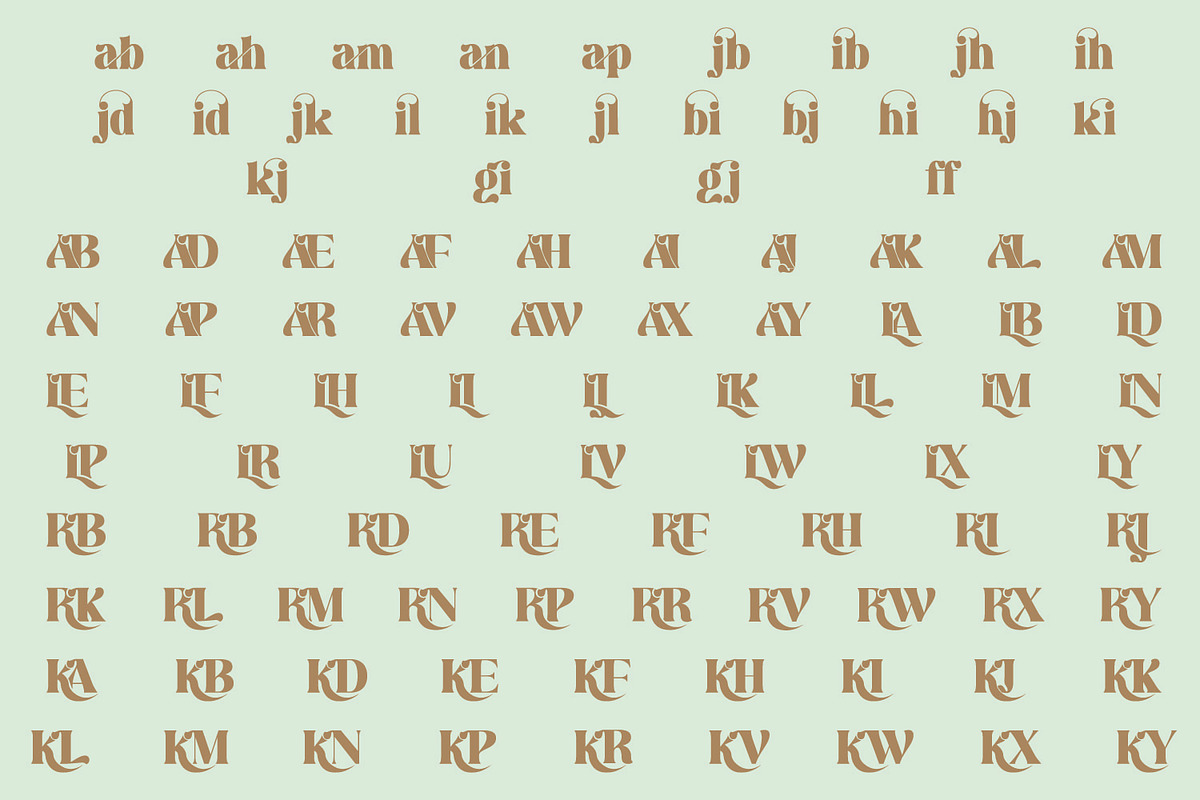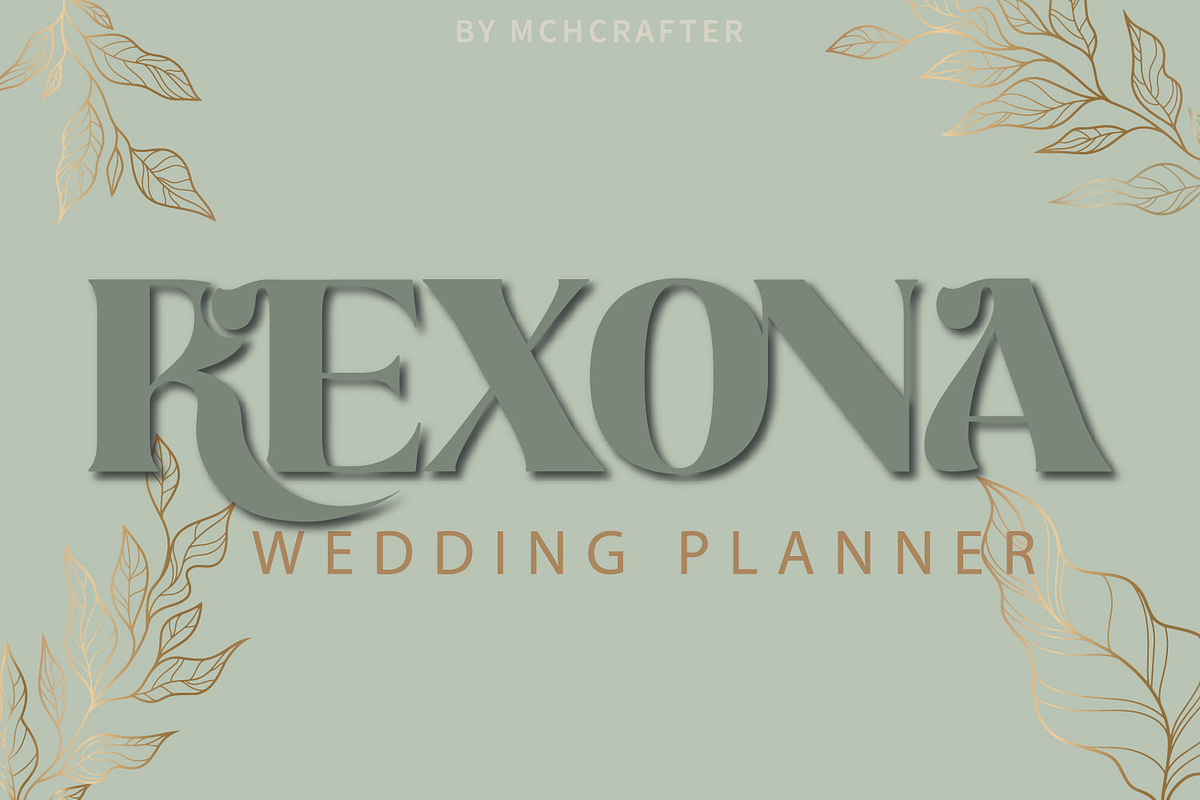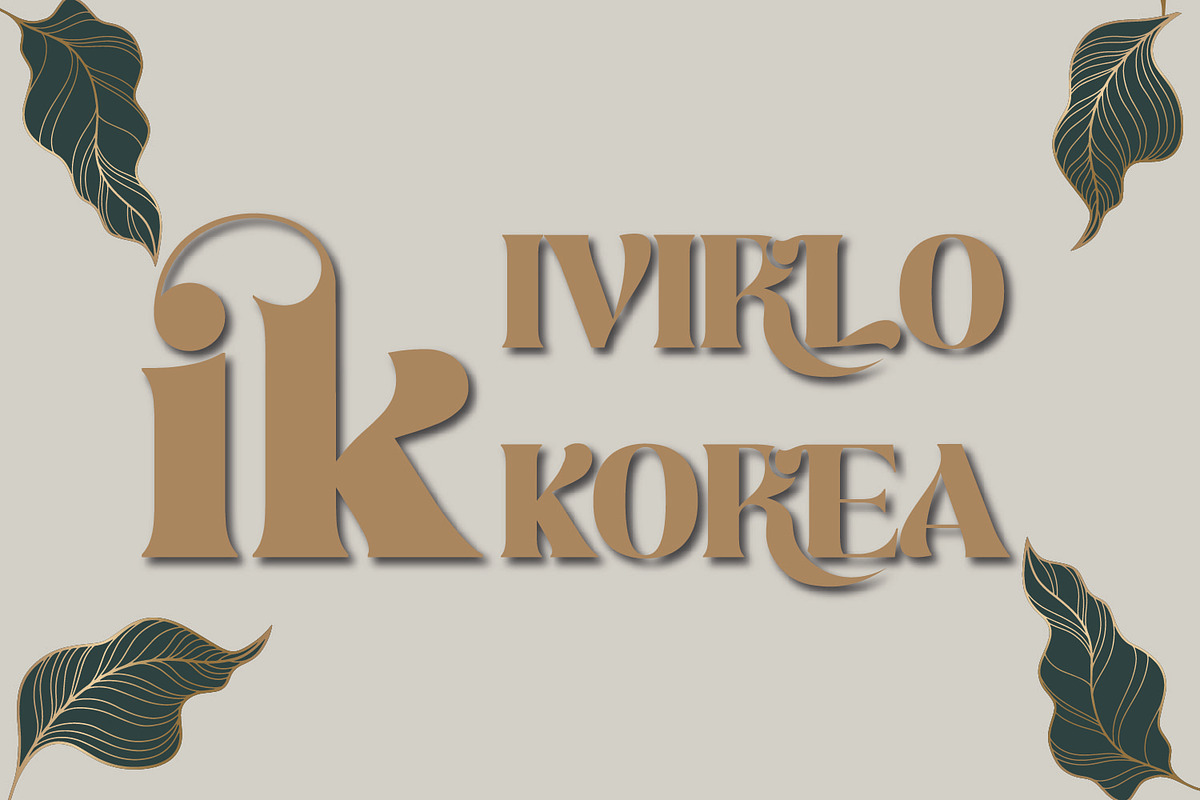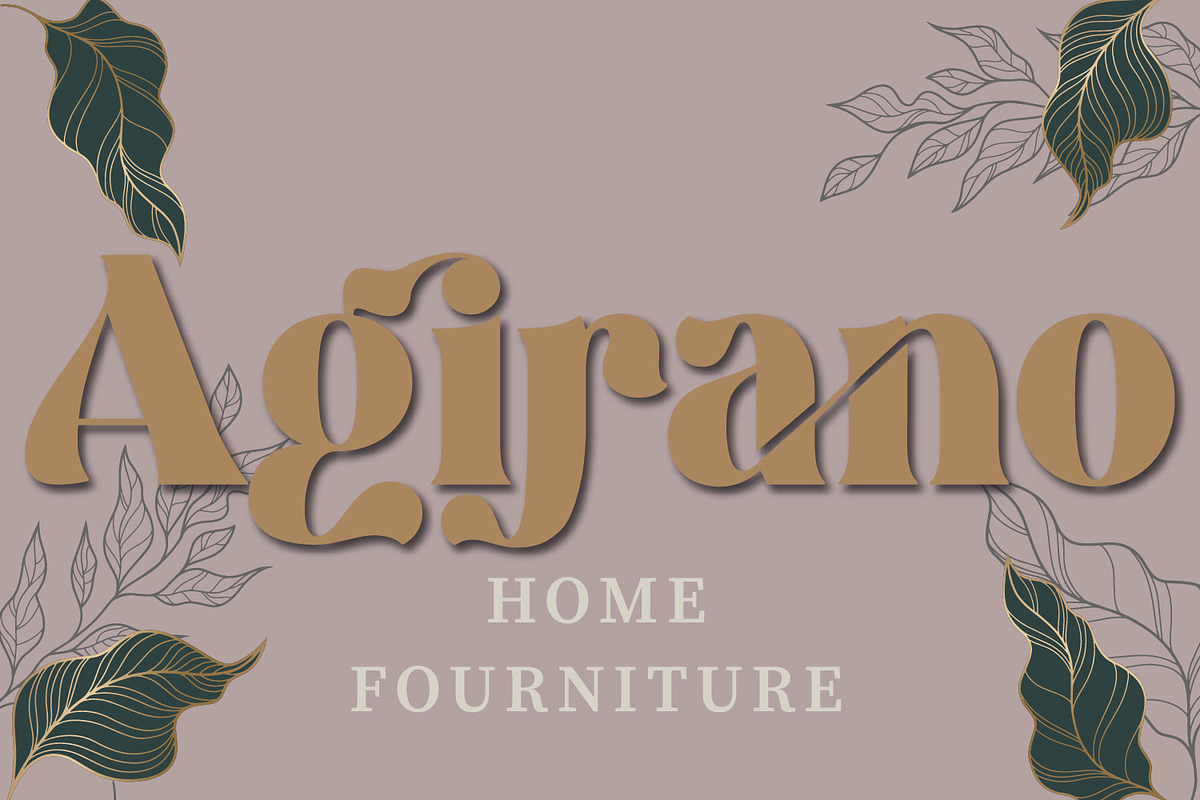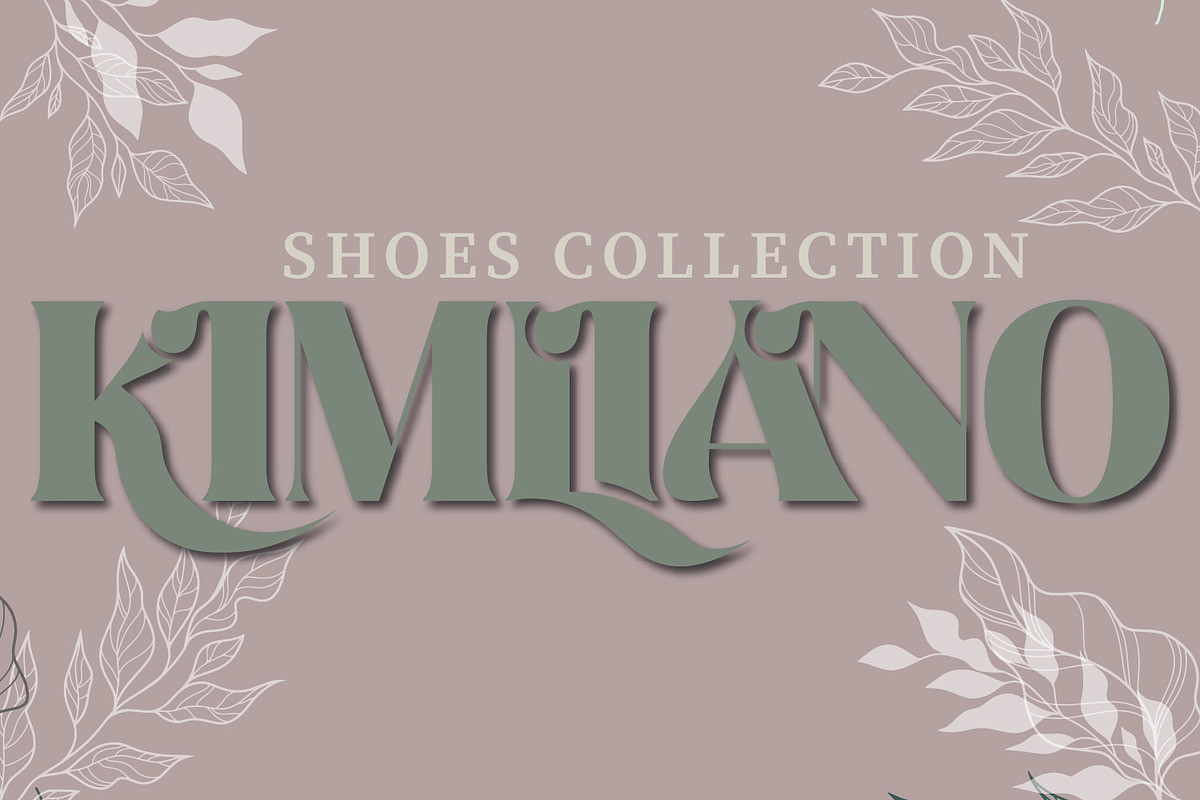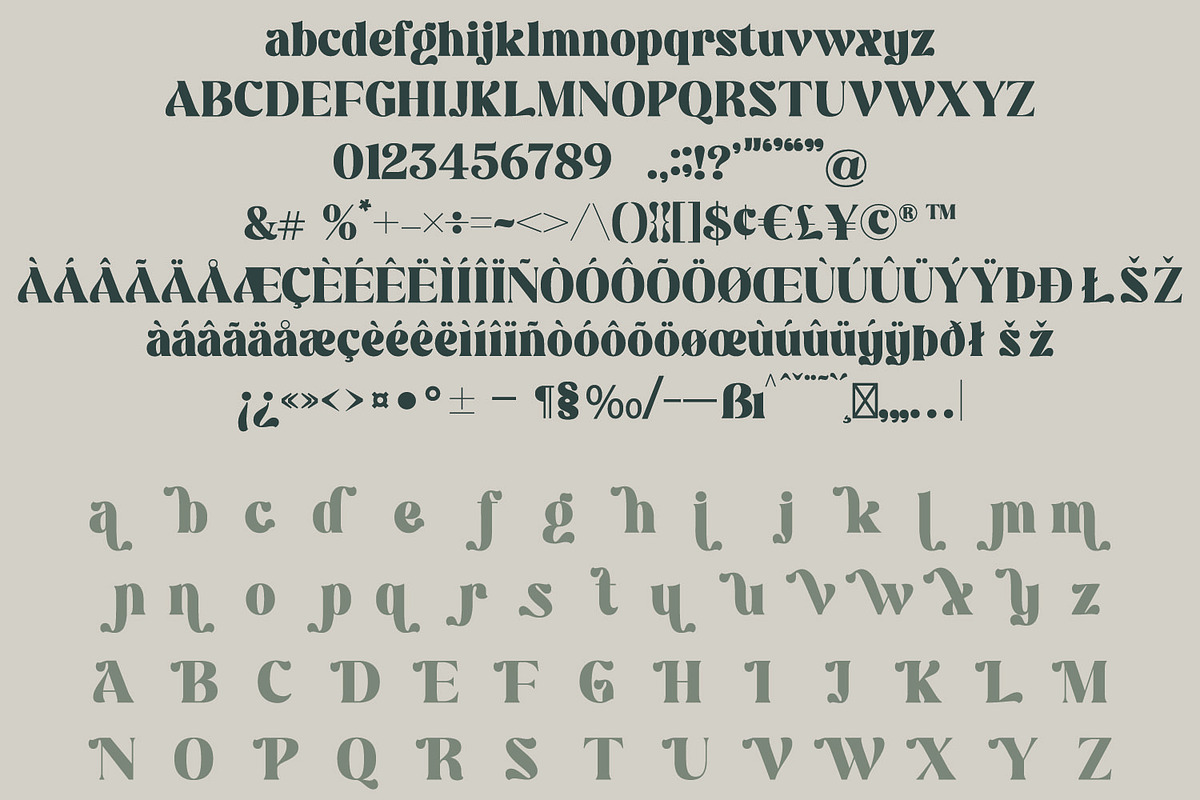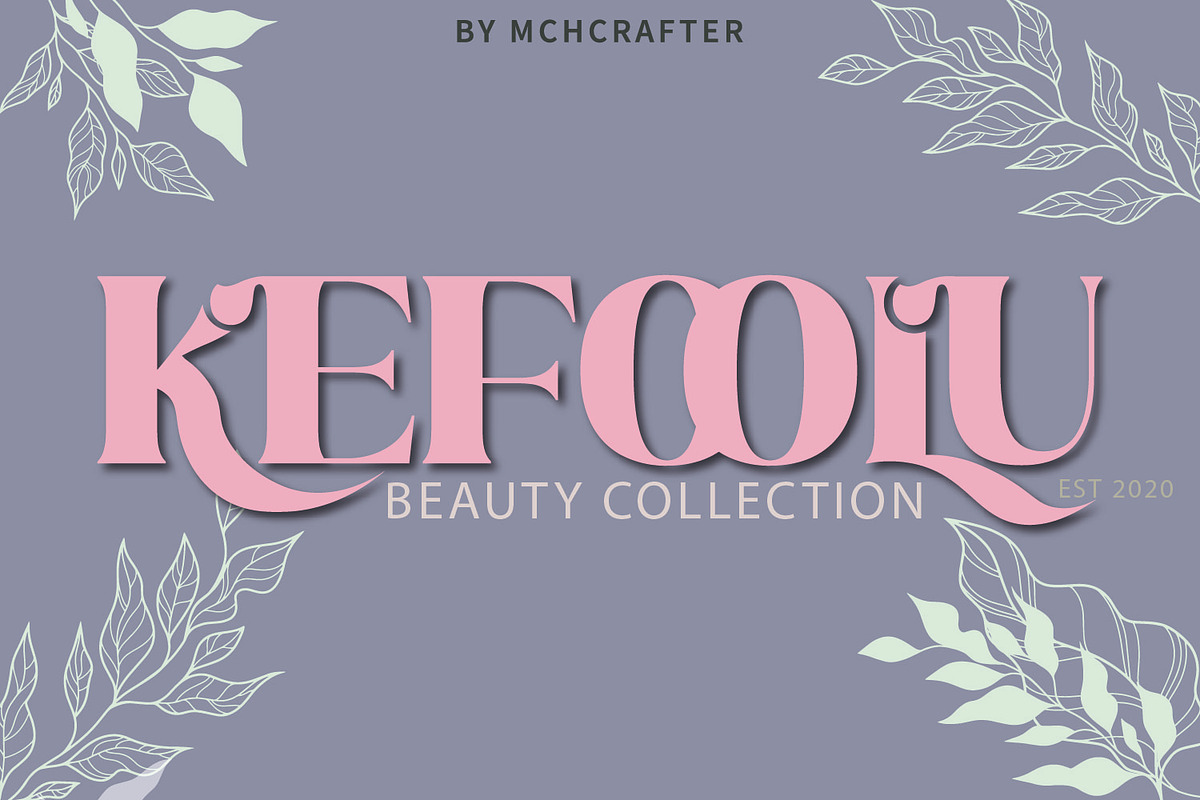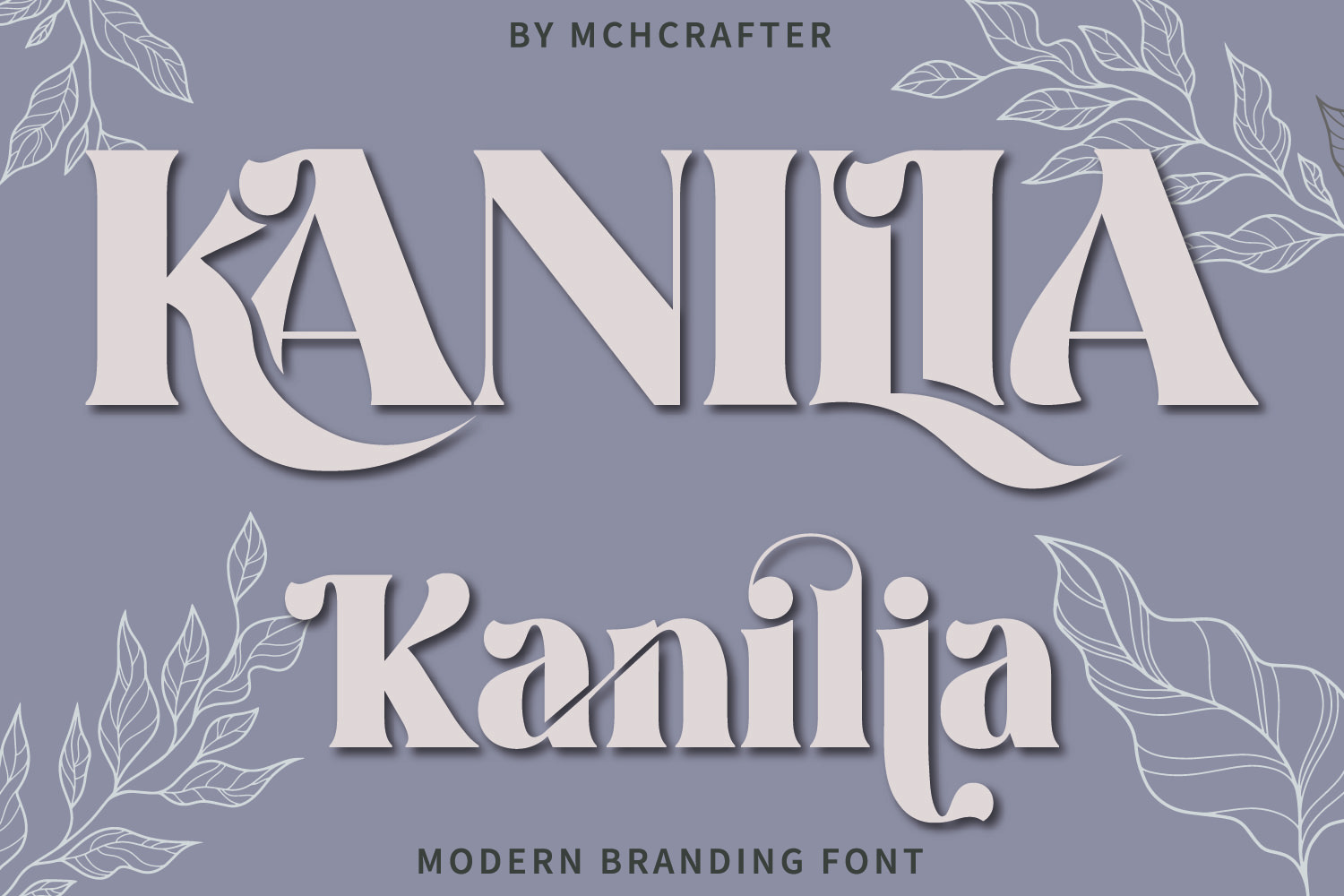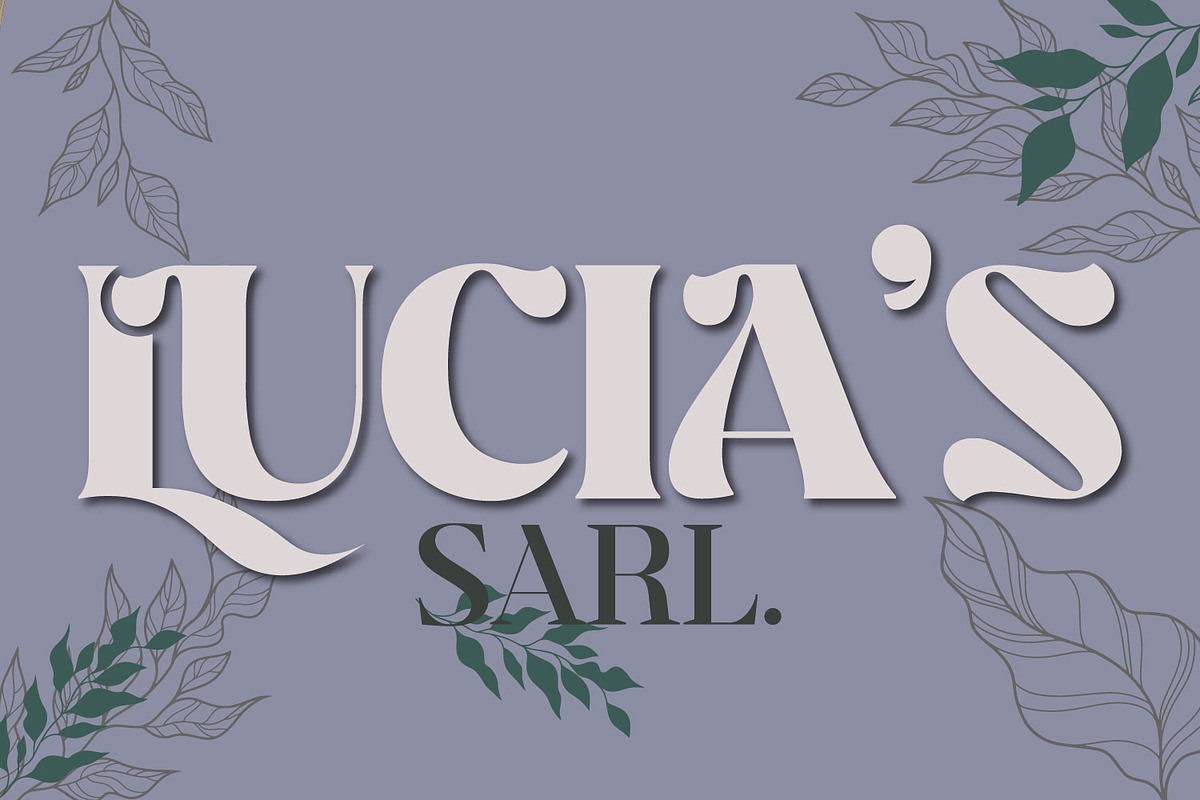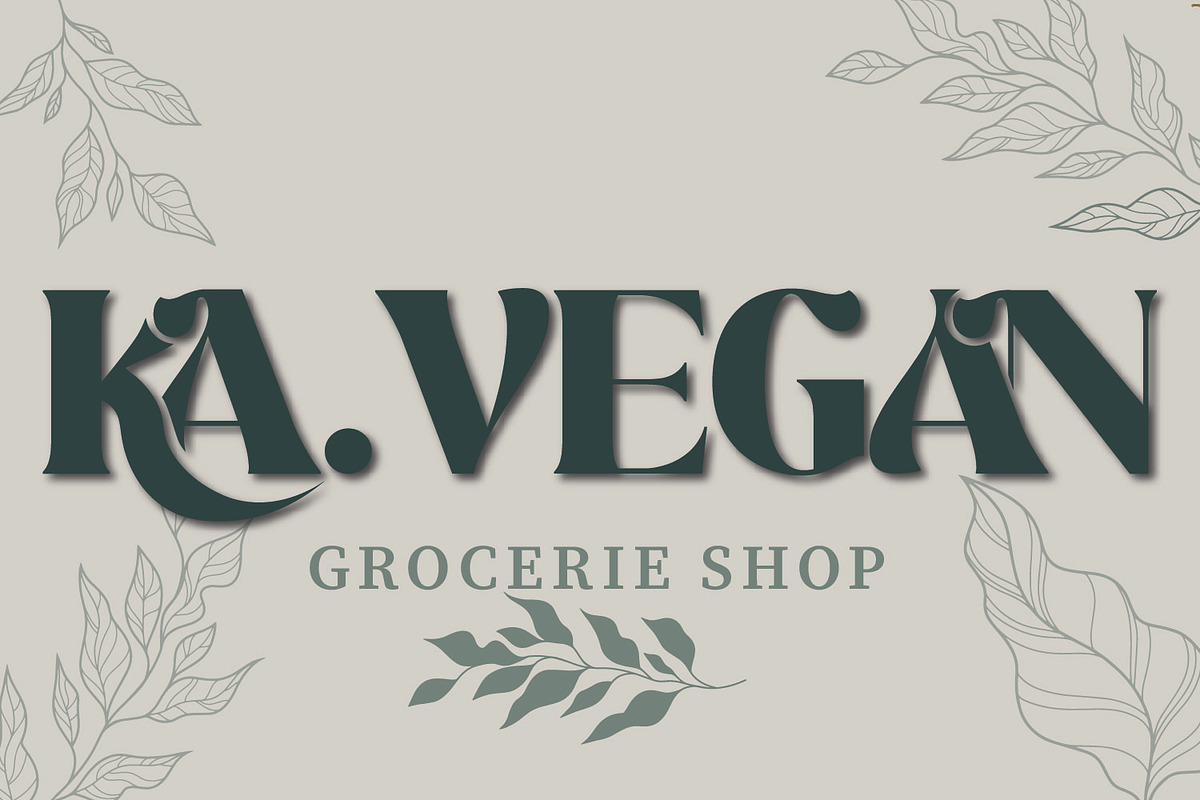
Kanilia | Modern Branding Font
Kanilia Font is a Modern Stylistic Serif typeface.
A new serif that we created specially for branding needs, with extra ligatures and alternates in a unique shape just to add value to your brand. It so nice to leverage designer or product owner that need solutions to make their design look more stylish and modern. And specially for Kanilia Font , We prepared all the ligatures, and the alternates characters to help you create unlimited variations for your creative needs.